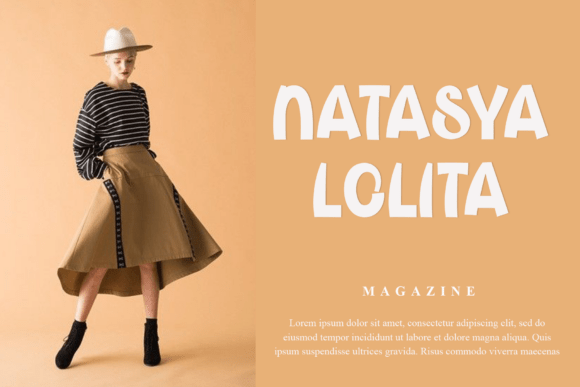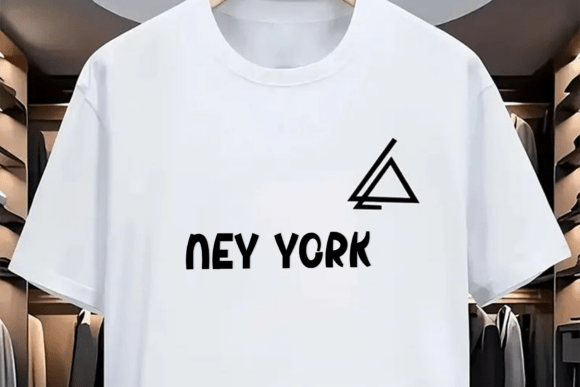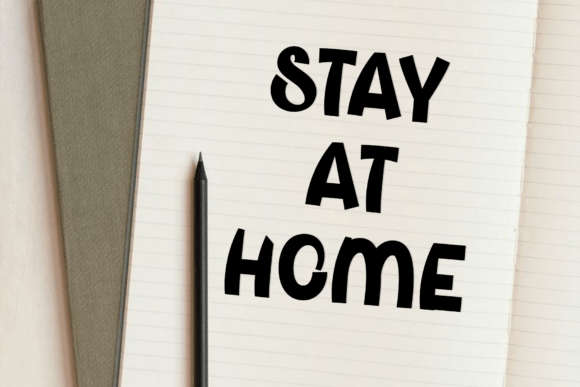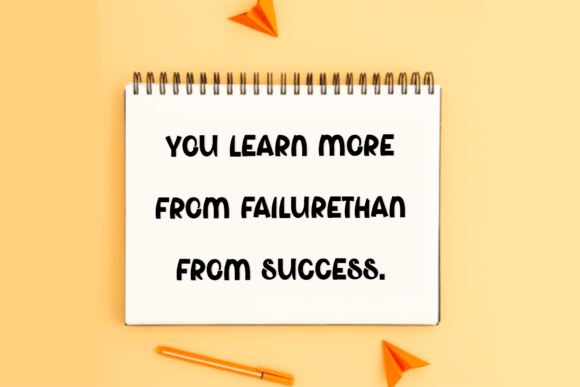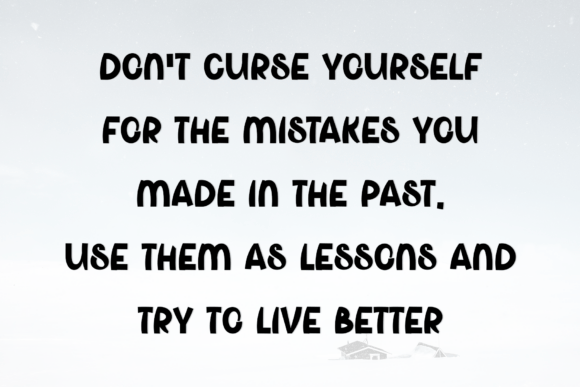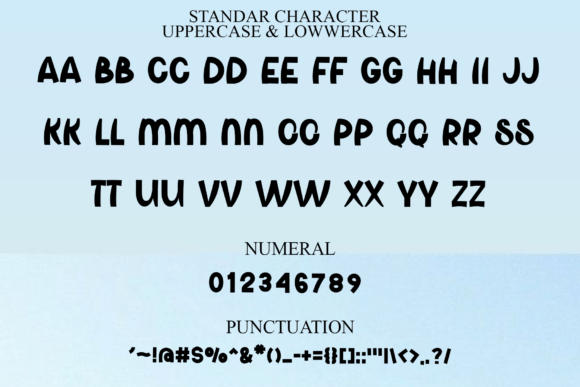
Introduction to Single Charm Font
Single Charm is a casual and creative font that exudes warmth and friendliness.
Key Features of Single Charm Font
Why Choose Single Charm Font?
Single Charm Font offers exceptional quality and versatility, making it a valuable addition to your design toolkit. Whether you’re creating for personal projects or commercial use, Single Charm Font delivers professional results.